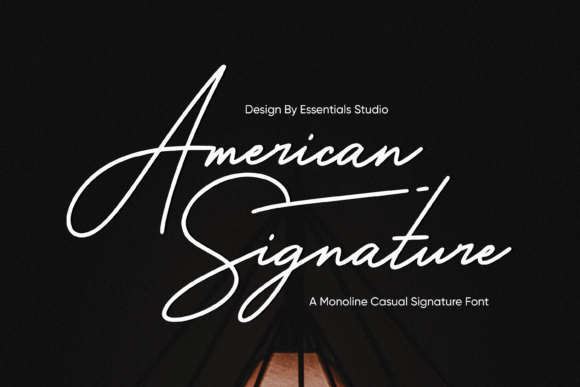
The Elegance of American Signature: A Font Review and Guide
I’ll never forget the design project that led me to discover the beautiful American Signature font. I was working on a wedding invitation suite for a client who wanted something elegant and sophisticated. As I scrolled through font after font, nothing seemed quite right – until I stumbled upon American Signature. Its delicate script and effortless swashes instantly captured the essence of the occasion, and I knew I’d found the perfect fit.
An Honest Review of American Signature
So, what makes American Signature so special? Let’s dive into the good stuff and a few quirks I’ve encountered.
- ✨ Elegant and Refined: American Signature exudes class and sophistication, making it perfect for high-end designs, wedding materials, and luxury branding.
- ✅ PUA Encoded: The font’s PUA encoding means you can easily access all the glyphs and swashes, giving you plenty of creative freedom.
- ✨ Versatile: This font works beautifully in both digital and print formats, from social media graphics to business cards and brochures.
A Few Quirks:
- ⚠️ Some Ligatures May Be Limited: While American Signature offers a range of ligatures and swashes, there might be some limitations when using certain combinations.
- 🤔 Requires Some Font Knowledge: To get the most out of American Signature, you’ll need to understand how to access and use OpenType features, glyphs, and stylistic alternates.
The Story Behind American Signature
While the origins of American Signature might be shrouded in mystery, it’s clear that the font was crafted with love and attention to detail. Imagine a designer, inspired by the elegance of vintage typefaces, pouring their heart into creating a font that would make any design project shine. That’s the story behind American Signature – a beautiful blend of classic sophistication and modern flair.
Q: Is American Signature suitable for body text?
A: While American Signature is stunning, it’s primarily designed for headlines, titles, and short paragraphs. For body text, consider a more legible font to ensure readability.